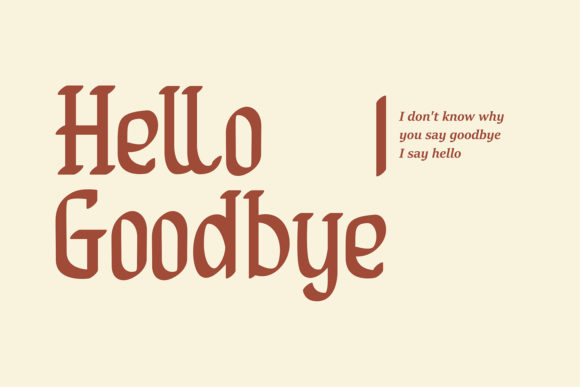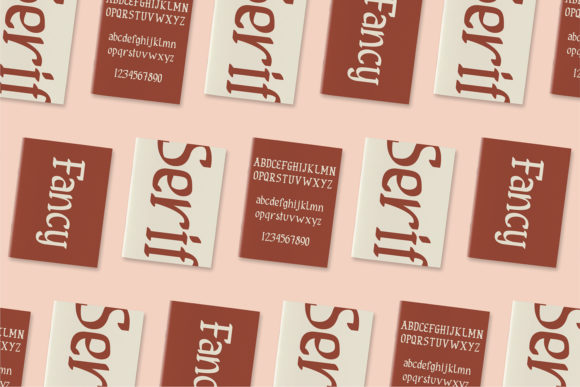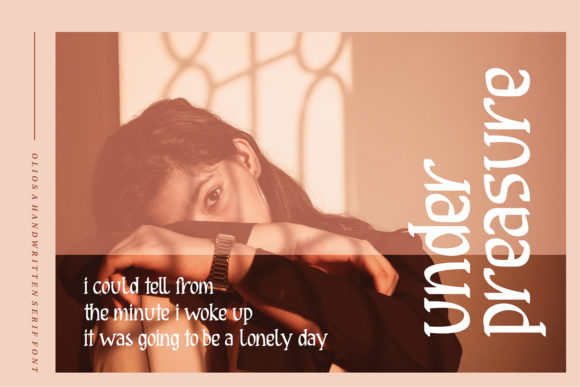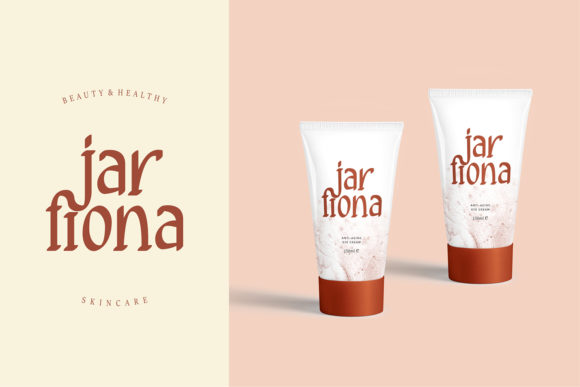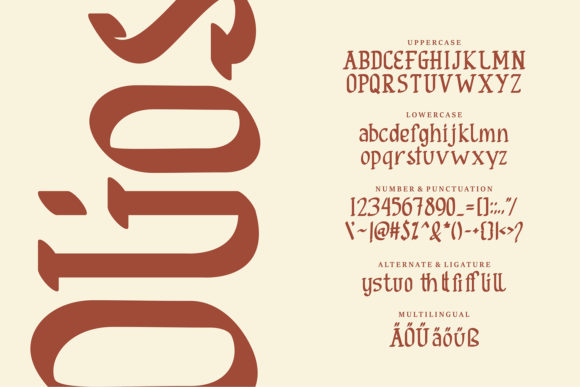
Introduction to Olios Font
Olios feels equally charming and elegant.
It features an incredibly classic style, while still keeping a friendly feel This serif font is the perfect font for making original and outstanding designs.